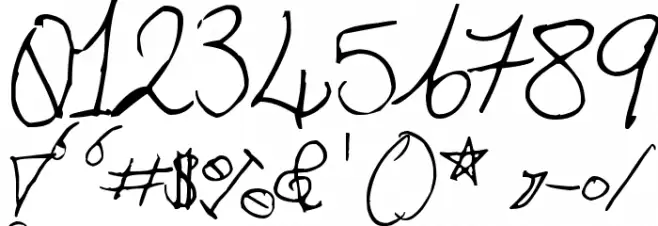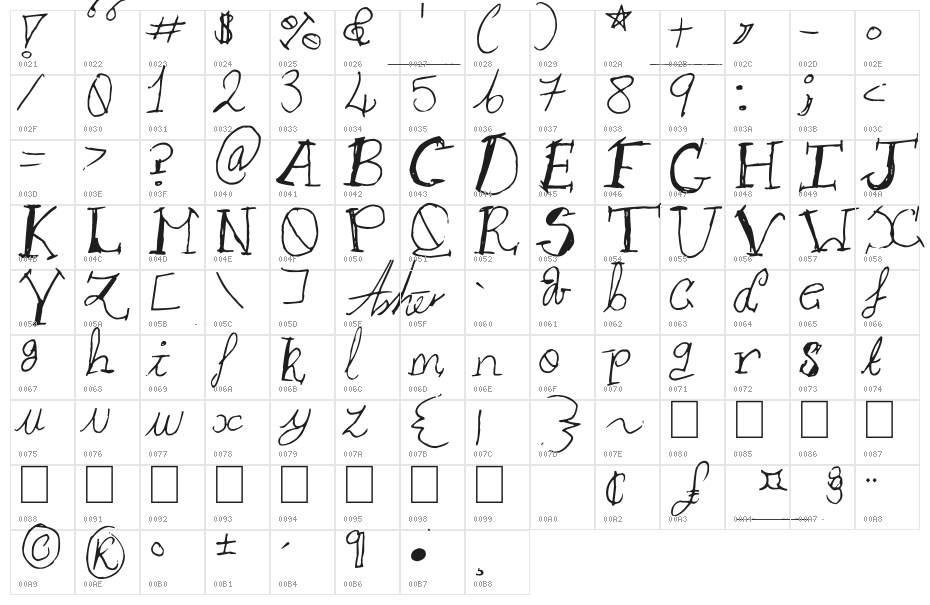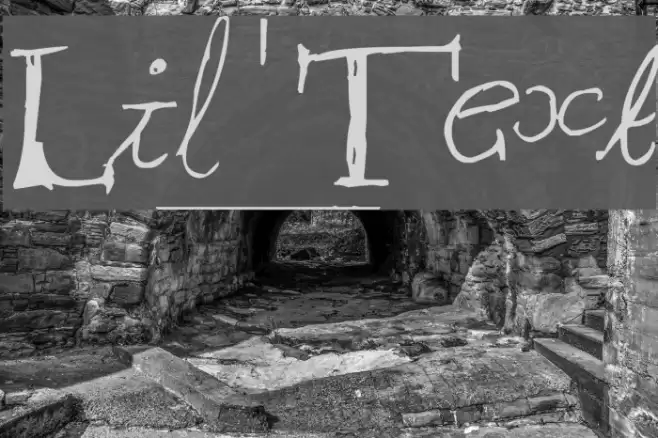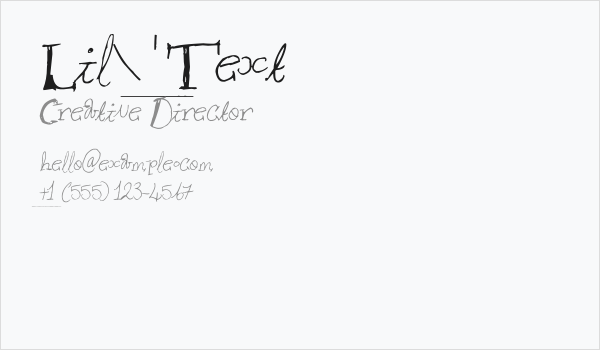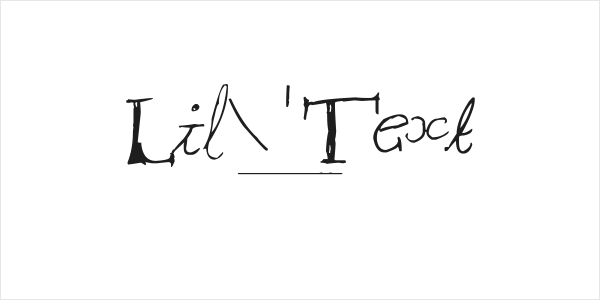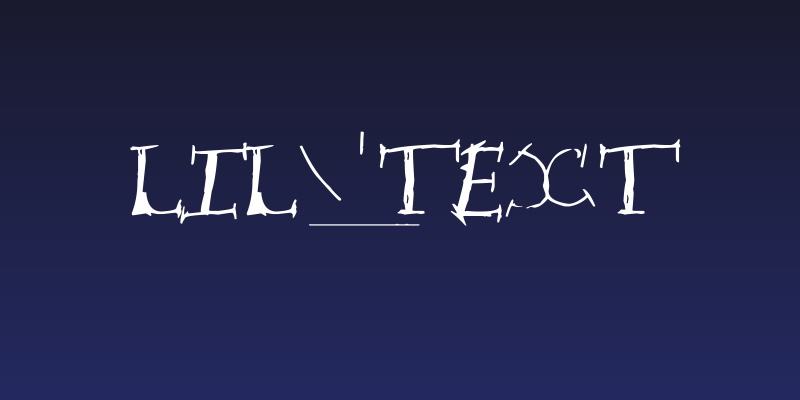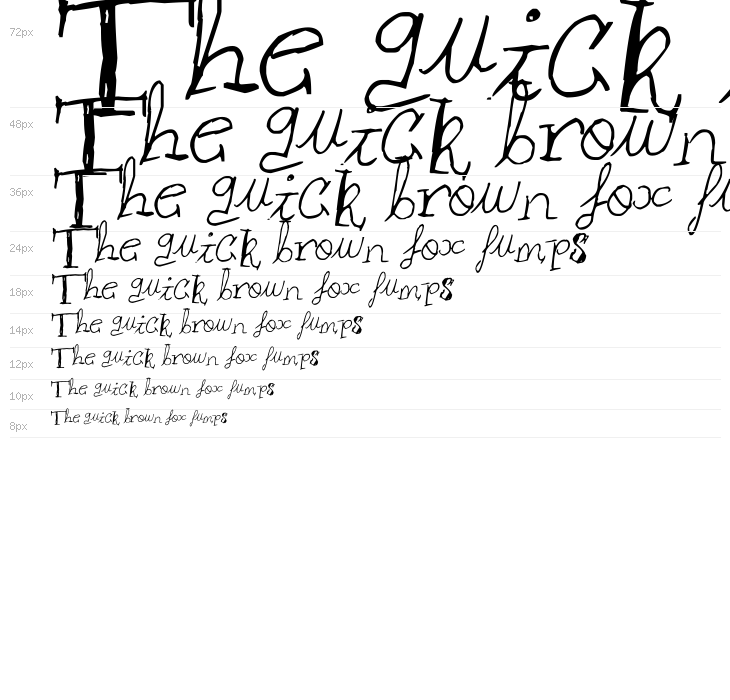
Lil'Text Font
Lil'Text Description
This font features a unique, edgy style with a hand-drawn appearance. The characters are irregular and have a slightly chaotic feel, with strokes that vary in thickness, giving it a dynamic and energetic look. The uppercase letters are bold and angular, while the lowercase letters maintain a more fluid and cursive style. Numbers and special characters follow the same eclectic design, making the font suitable for creative and artistic projects. The overall impression is one of spontaneity and creativity, perfect for designs that require a touch of individuality and flair.
| Proposed Projects | Ideal for album covers, posters, graffiti art, and creative branding projects. |